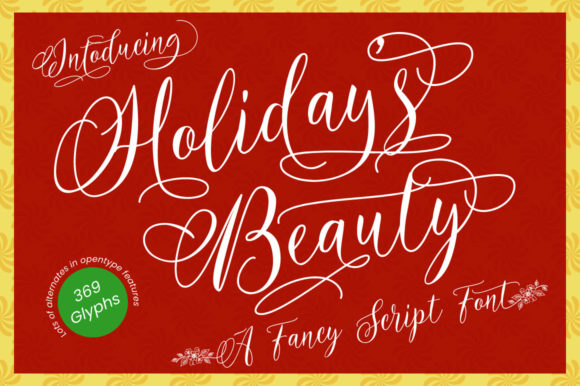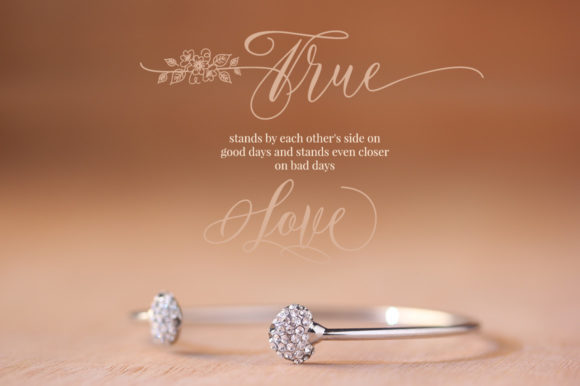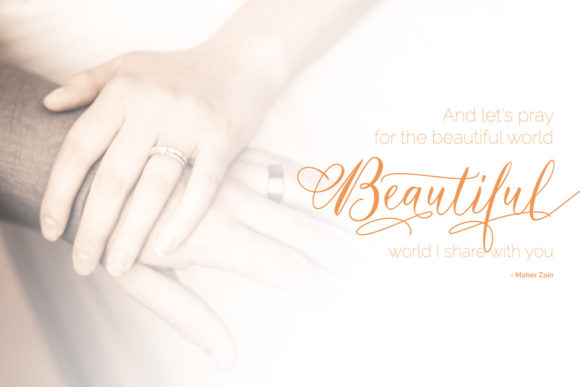
About Holidays Beauty Font
Holiday’s Beauty font (formerly known as Tatyana font) is a calligraphic script font plus decorative glyphs alternates. Carefully crafted for your holiday design. Flowing smoothly, perfect for designing book covers, film covers, apparel, cards, logos, posters, etc. Opentype features give you more alternatives in designing.